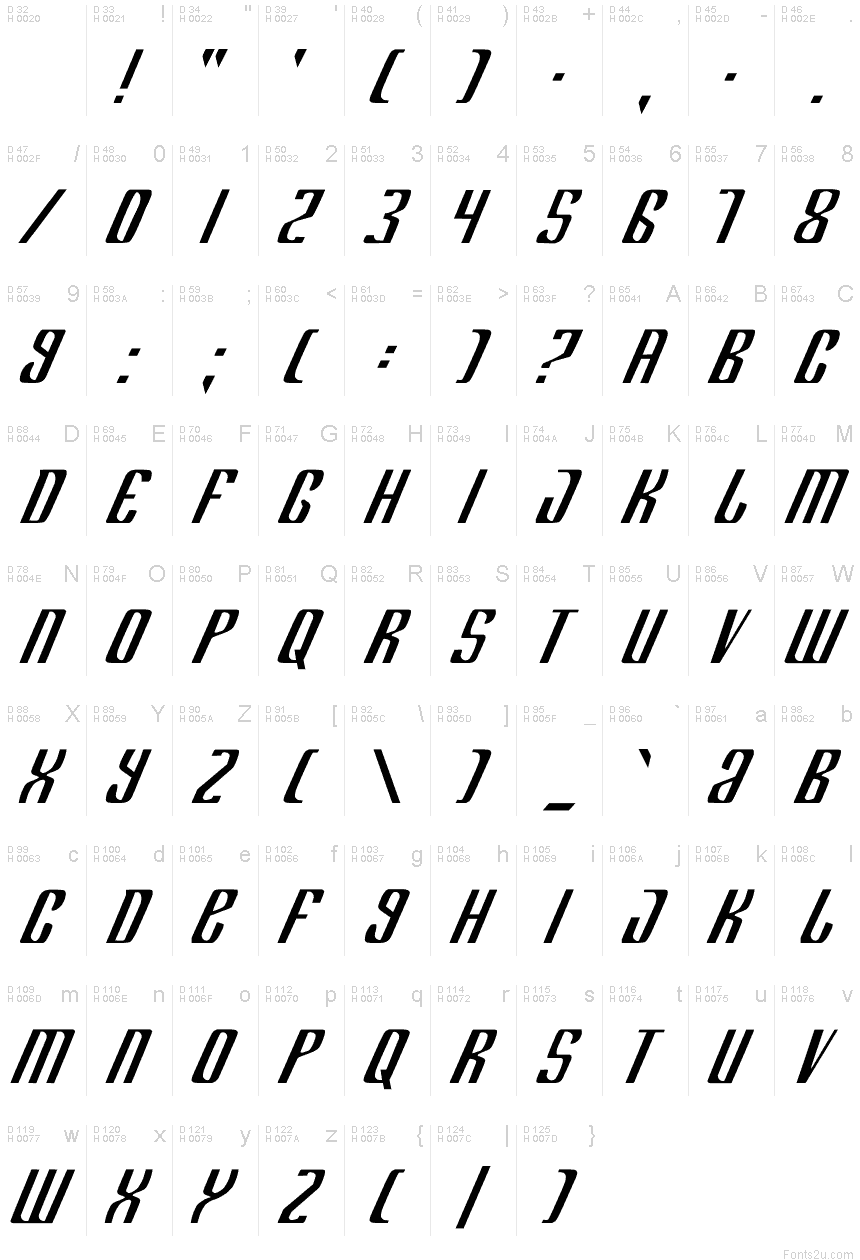
Department H
Department H font by Iconian Fonts is a free retro display typeface that looks like it’s been pulled straight off a speeding marquee. Ultra-condensed letters, sliced diagonals, and that hard slanted posture create a feeling of motion even when the text is standing still. The strokes are thick and inky, with a slightly industrial edge that evokes old department store logos, racing decals, and bold 70s packaging. It’s loud, directional, and unapologetically stylized.
Using Department H, short words and numbers punch through the layout, making it a natural fit for posters, sports graphics, event titles, game logos, book covers, and bold branding marks. This free font really shines at large sizes where its compressed rhythm and dramatic slant can stretch across a page or screen. Pair it with a clean, neutral sans serif for body copy and let Department H handle the headlines and hero text.